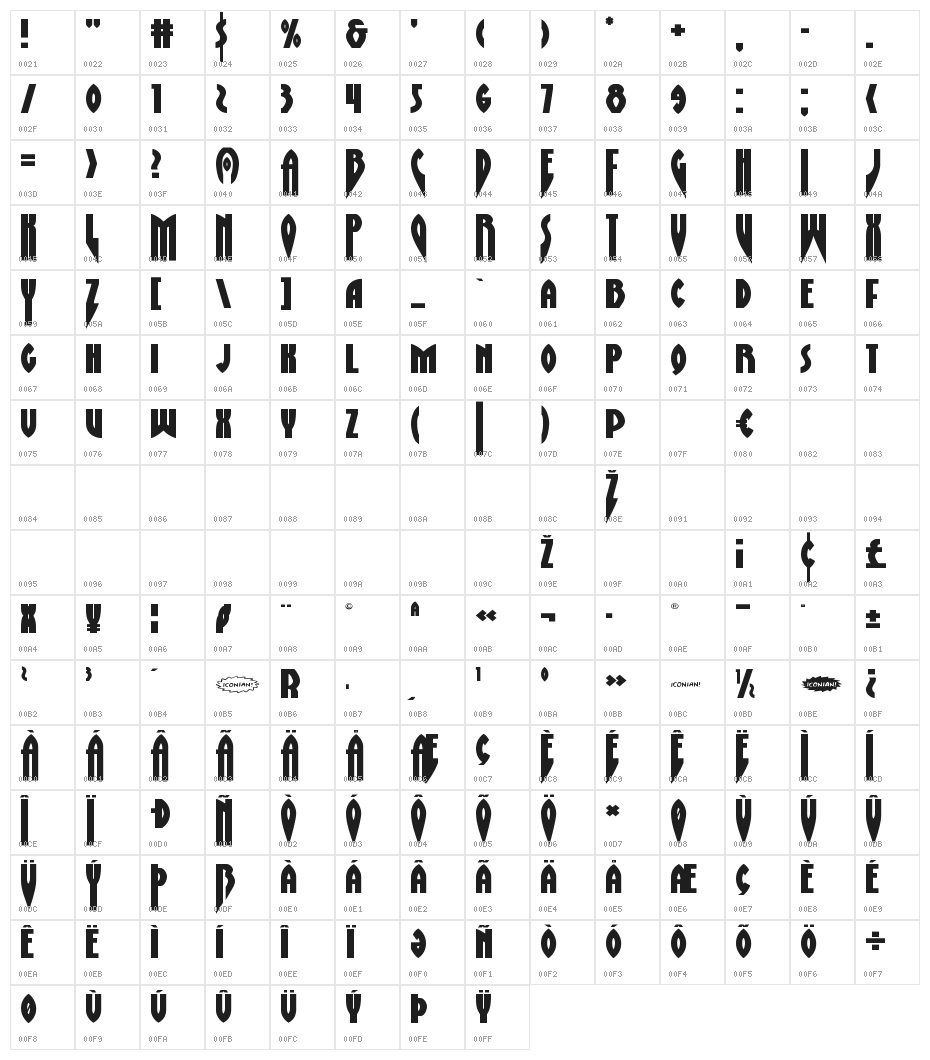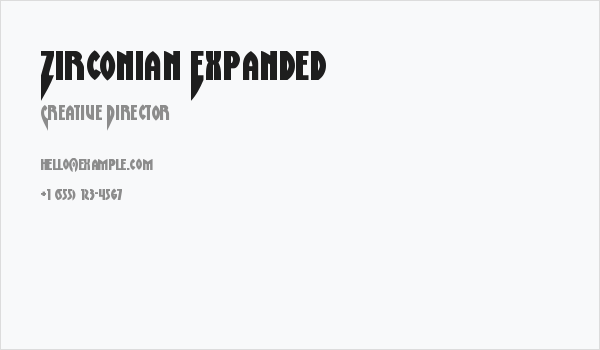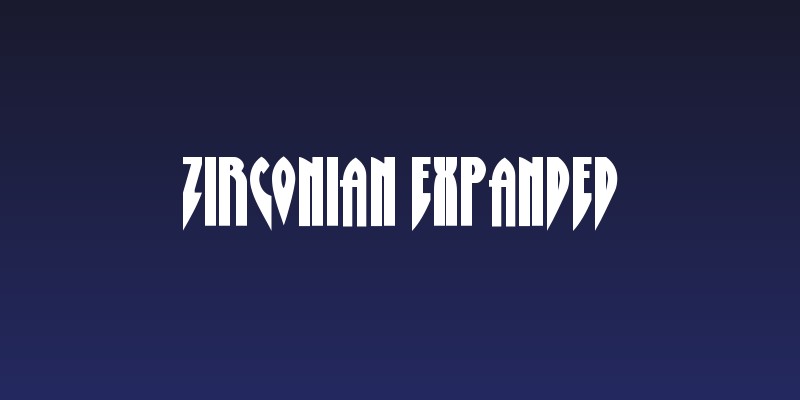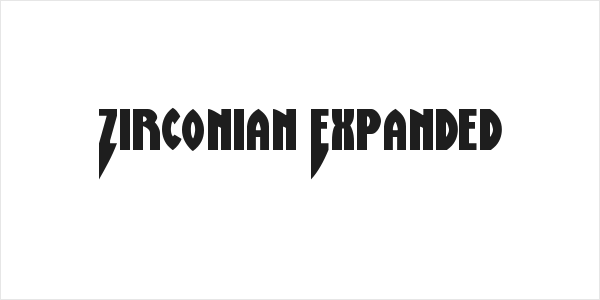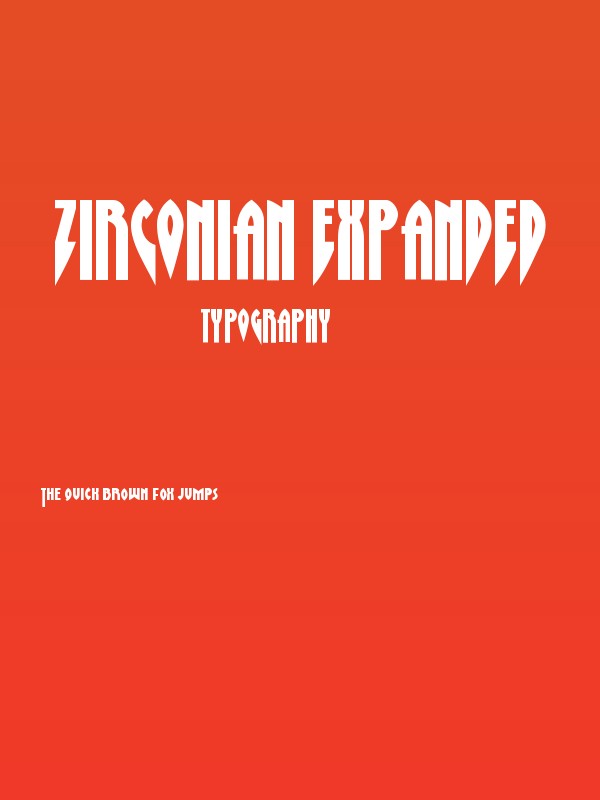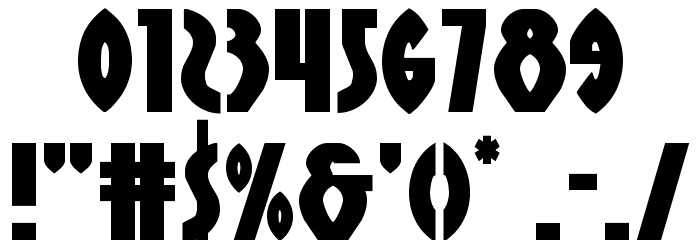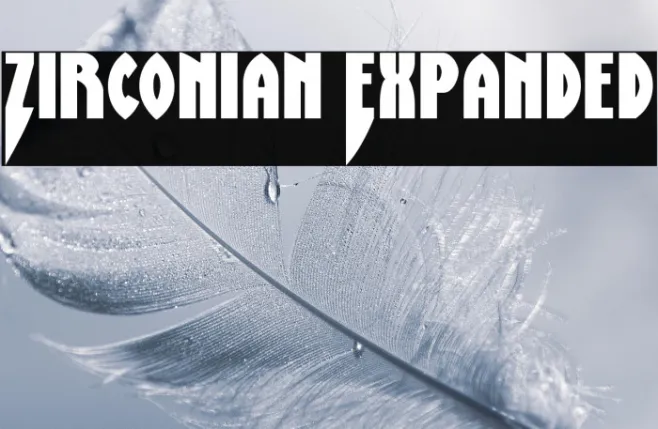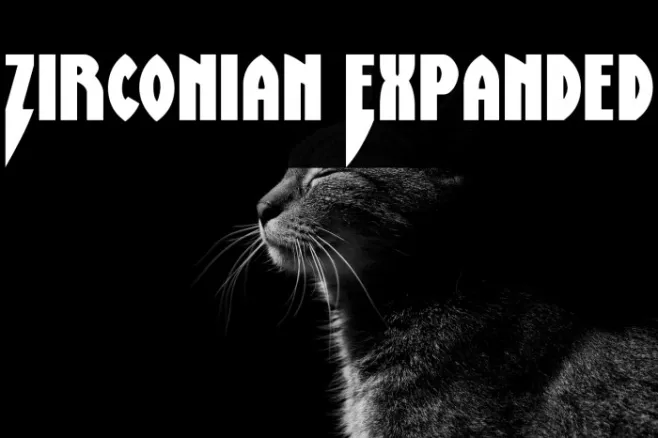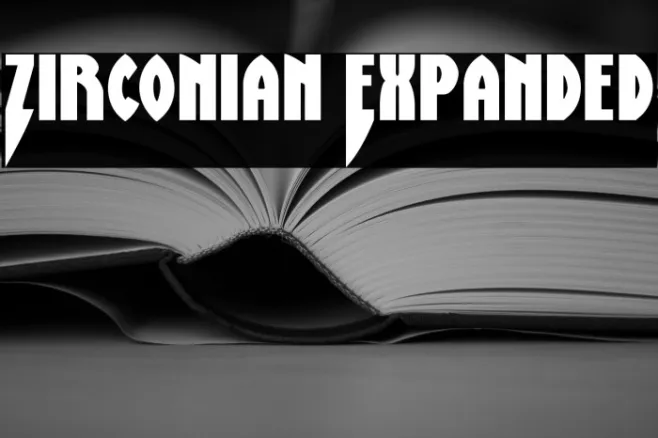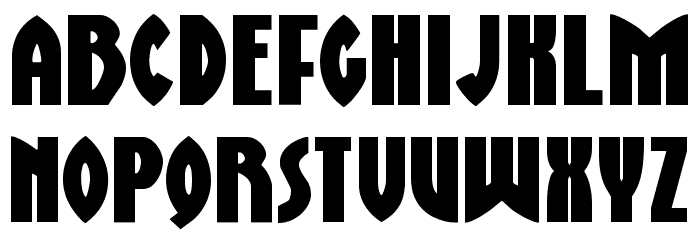
Zirconian Expanded Font
Zirconian Expanded Description
This font features a bold and striking design with an expanded width, making it ideal for attention-grabbing headlines and titles. The characters are crafted with a geometric and angular style, giving them a modern and futuristic appearance. The uppercase letters are particularly prominent, with a strong presence that commands attention. The numbers and special characters maintain the same bold and expansive style, ensuring consistency across all text elements. The font's unique design makes it suitable for projects that require a standout visual impact.
| Proposed Projects | Ideal for posters, logos, branding, and any design requiring a bold statement. |